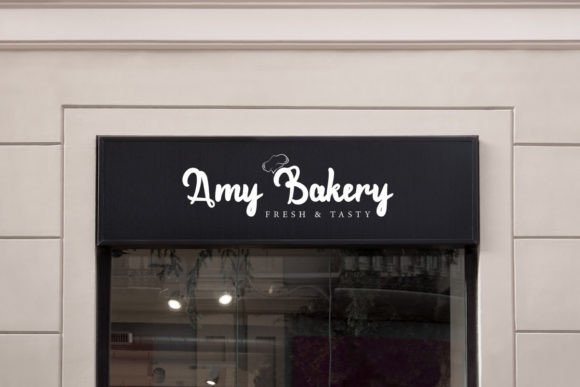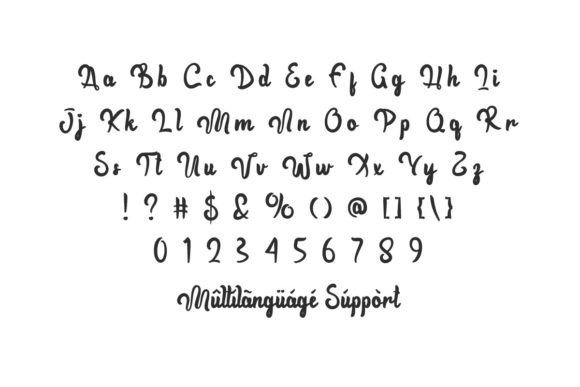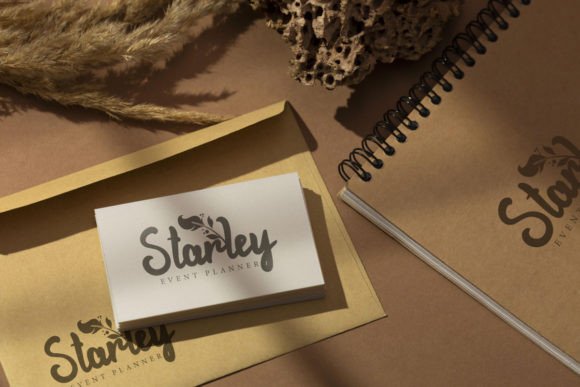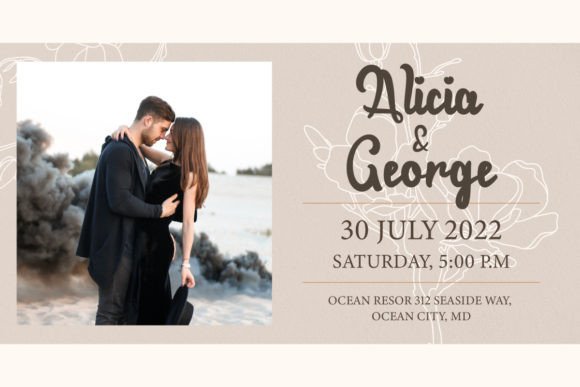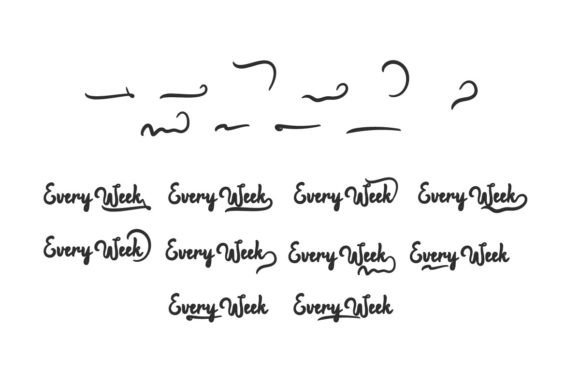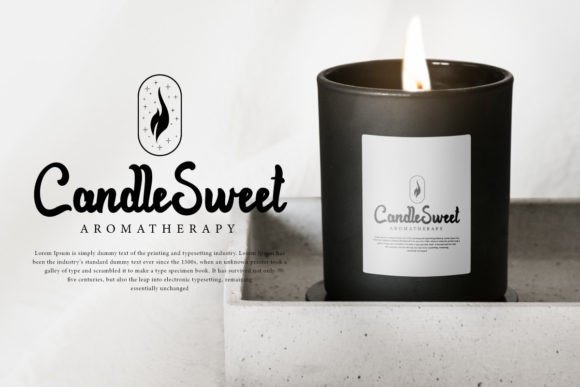
Introducing Every Week Font: Elevate Your Designs with Elegant Calligraphy
Are you a designer or crafter looking for a unique and elegant font to elevate your brand or project? Look no further than Every Week Font, a stunning calligraphy font created by NihStudio. This beautiful font is perfect for adding a touch of sophistication and natural charm to your designs.
What Makes Every Week Font Special?
Every Week Font is a handcrafted calligraphy font that uses a thick, irregular brush to create a distinctive and eye-catching look. This font is perfect for businesses and individuals in various industries, including bakery, boutique, cosmetic, event planning, fashion, florist, spa, and more. Its unique character makes it stand out from other fonts, ensuring your brand or project gets noticed.
Key Features of Every Week Font
- Uppercase and Lowercase Basic Characters: The font includes a full set of uppercase and lowercase letters, ensuring you have everything you need to create stunning designs.
- Numbers, Punctuation, and Symbols: Every Week Font also includes numbers, punctuation, and symbols, making it a versatile font for various design applications.
- Swoosh: Add a touch of elegance to your designs with the included swoosh element.
- Multilingual Characters: The font supports multilingual characters, making it perfect for global brands or projects.
Use Every Week Font for a Variety of Design Projects
Every Week Font is an incredibly versatile font that can be used for a wide range of design projects, including:
- Label design: Create eye-catching labels for your products or packaging.
- Brand logo: Establish your brand identity with a unique and memorable logo.
- Business card design: Make a lasting impression with elegant business cards.
- Headline and title design: Add a touch of sophistication to your headlines and titles.
- Invitation design: Create beautiful invitations for events, weddings, or parties.
- Packaging design: Elevate your product packaging with a natural and elegant touch.
- Price tag design: Create attractive price tags that reflect your brand’s style.
- Signage design: Design stunning signage for your business or event.
- Stationery design: Create beautiful stationery, including letterheads, envelopes, and more.